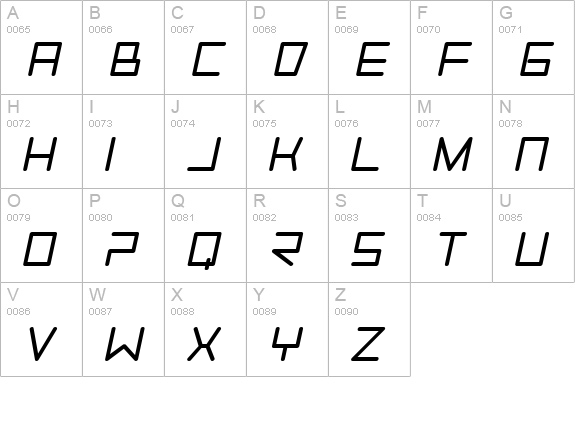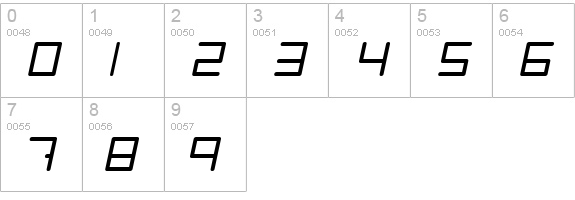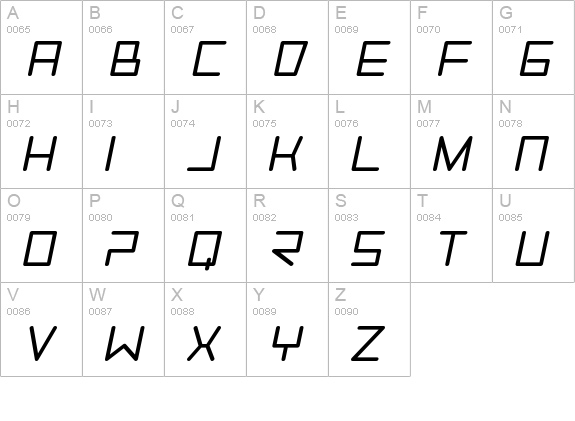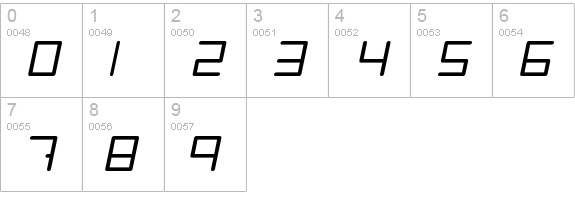
Trancemission BoldItalic Font Details
Trancemission BoldItalic font is a captivating and mesmerizing typeface that effortlessly combines boldness and elegance. Its intricate and dynamic letterforms exude a sense of energy and movement, making it the perfect choice for designs that aim to captivate and enthrall. This font is a true testament to the power of typography, as it effortlessly combines the boldness of the Trancemission typeface with the graceful slant of italics. The result is a font that is both commanding and sophisticated, making it an excellent choice for titles, headlines, and any design that calls for a touch of drama. Trancemission BoldItalic font is freely available to download at FontsMarket.com, allowing designers and creatives to access this stunning typeface without any limitations. Its availability for free ensures that anyone can unlock the potential of this extraordinary font, as it can be used in a wide range of projects, from branding and advertising to web design and print media. Whether you want to create eye-catching posters, striking logos, or attention-grabbing headlines, Trancemission BoldItalic font will undoubtedly elevate your designs to new heights. Its unique combination of boldness and italics sets it apart from other typefaces, making it a versatile and powerful tool in the hands of any designer. With its free availability on FontsMarket.com, there is no reason to hesitate in adding Trancemission BoldItalic font to your font library. Download it today and unlock the potential to create captivating and unforgettable designs that leave a lasting impression.